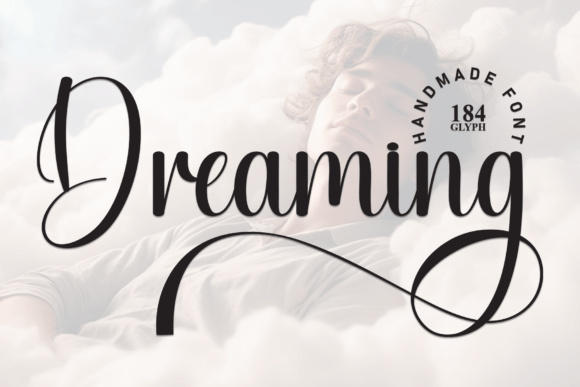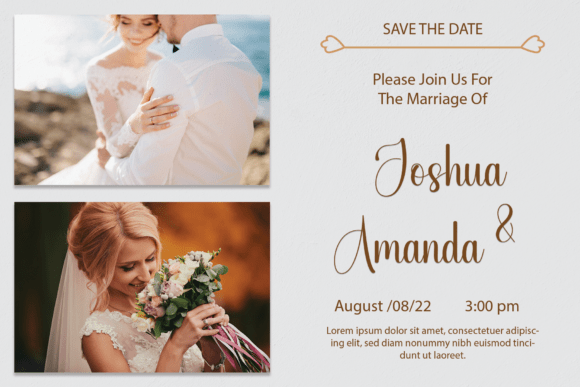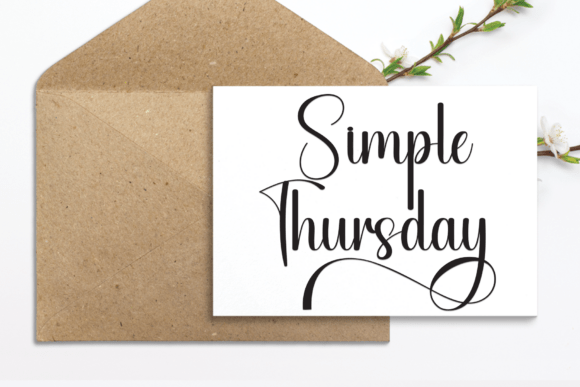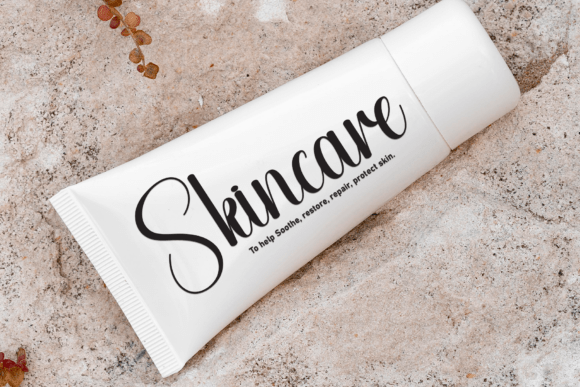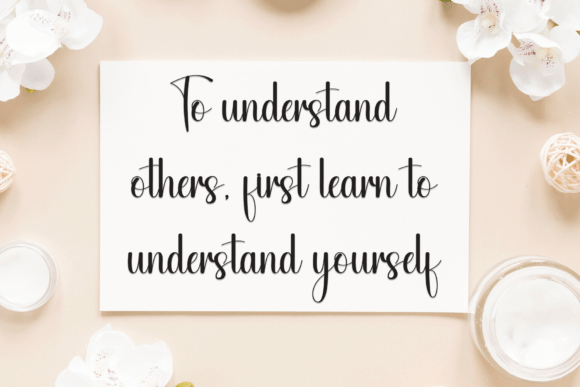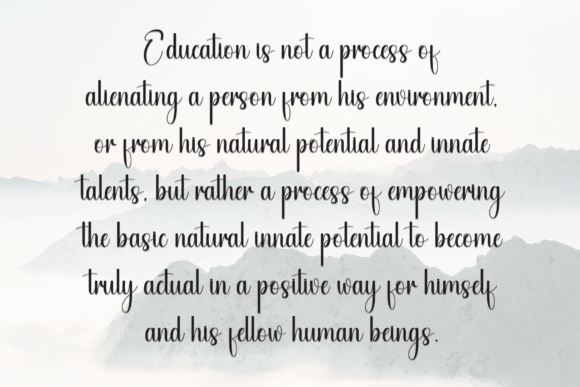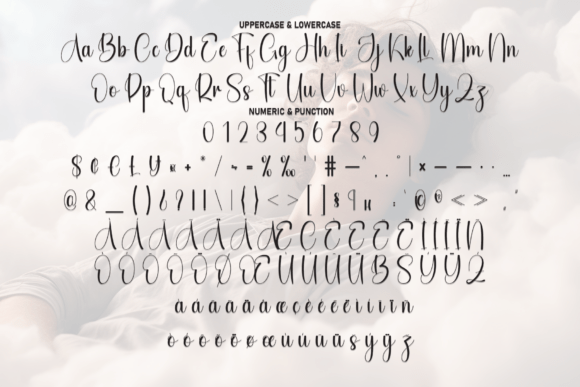
The Art of Captivating Your Audience
Have you ever been in a moment of pure creative bliss, where the words flow effortlessly onto the page and your design seems to come alive? For designers, those magical moments are what make all the hard work worth it. But what if you could infuse that same magic into every project you take on?
Enter the Dreaming Font, a hand-drafted typeface designed to inject a spellbinding allure into your creative pursuits. This lively script is overflowing with an easy-going and inviting aura, making it a perfect option to effortlessly express heartfelt warmth in wedding invites, salutations, and a variety of design endeavors that desire a touch of cheerfulness and streamlined sophistication.
Dreaming Font Key Features
- Character Set: The font includes a comprehensive character set, covering Latin, Cyrillic, and Greek alphabets, as well as various punctuation marks and symbols.
- Unique Characteristics: The Dreaming Font features a unique, hand-drawn design with intricate details and flourishes, making it ideal for creative and artistic applications.
- Style Variations: The font includes multiple style variations, including Regular, Italic, Bold, and Bold Italic, allowing users to customize their text to suit different needs and moods.
- Multi-Language Support: The font is designed to support multiple languages, including English, Spanish, French, German, Italian, Portuguese, Dutch, Russian, Chinese, Japanese, and Korean.
Dreaming Font Review
Overall, I think the Dreaming Font is a beautiful addition to any design project. Here are some of its strengths: ✨
- Unique aesthetic: The font’s dreamy, ethereal quality is perfect for projects that need a touch of whimsy.
- Highly legible: Despite its intricate design, the font is surprisingly easy to read, even at smaller sizes.
- Good for titles and headings: The font’s bold, flowing lines make it ideal for grabbing attention and setting the tone for a project.
- Limited language support: The font may not be as effective for languages that require a lot of complex diacritical marks.
- Not suitable for body text: While the font is great for titles and headings, it can be overwhelming for large blocks of text.
- May require additional styling: Depending on the project, you may need to add extra styling or formatting to get the font to look its best.
Overall, I’d give the Dreaming Font 4 out of 5 stars. It’s a beautiful, unique font that’s perfect for projects that need a touch of magic. Just be aware of its limitations and use it wisely.
Tips for Getting the Most Out of Dreaming Font
To get the most out of Dreaming Font, try the following:
- Use it in combination with a bold or italic font for added emphasis.
- Experiment with different font sizes to create visual hierarchy.
- Pair Dreaming Font with a simple background to let the text take center stage.
Dreaming Font is perfect for:
- Book covers and literary projects.
Alternatives to Dreaming Font for Designers
Great Vibes is a beautiful, cursive script font that can be used for a variety of purposes, including invitations, posters, and branding. It has a more elegant and sophisticated feel compared to Dreaming Font, which makes it suitable for high-end designs. Great Vibes is a great choice when you need a font that exudes luxury and refinement.
Comparison to Dreaming Font: While both fonts are script fonts, Great Vibes has a more refined and elegant feel, making it more suitable for formal designs. Dreaming Font is more playful and whimsical, making it better suited for casual designs.
Carolyna Pro is a modern script font that is perfect for designs that require a touch of sophistication and elegance. It has a more refined and precise feel compared to Dreaming Font, making it suitable for designs that require a high level of detail. Carolyna Pro is a great choice when you need a font that exudes confidence and sophistication.